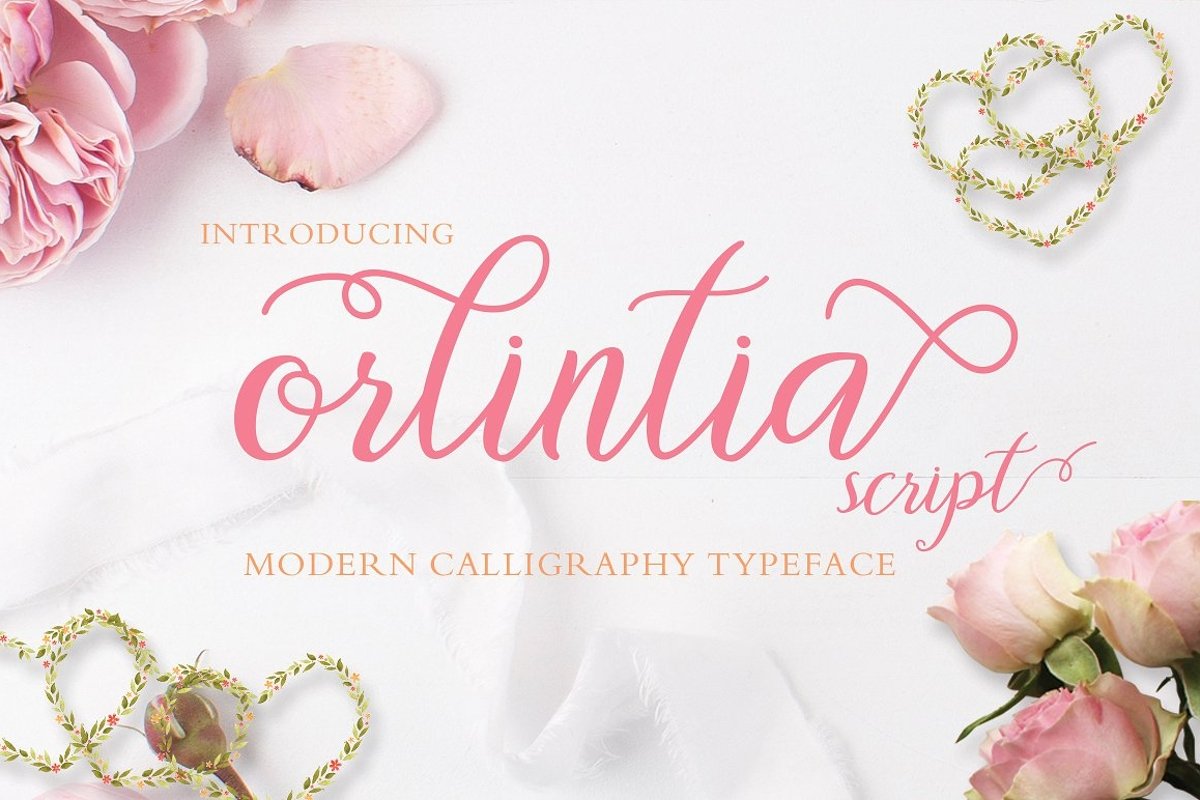
Orlintia Script
Orlintia Script is inspired by modern calligraphy. Handmade and
decorative, this script font has character with its baseline dance. Perfect and
beautiful on greeting cards, quotes, posters and much more.